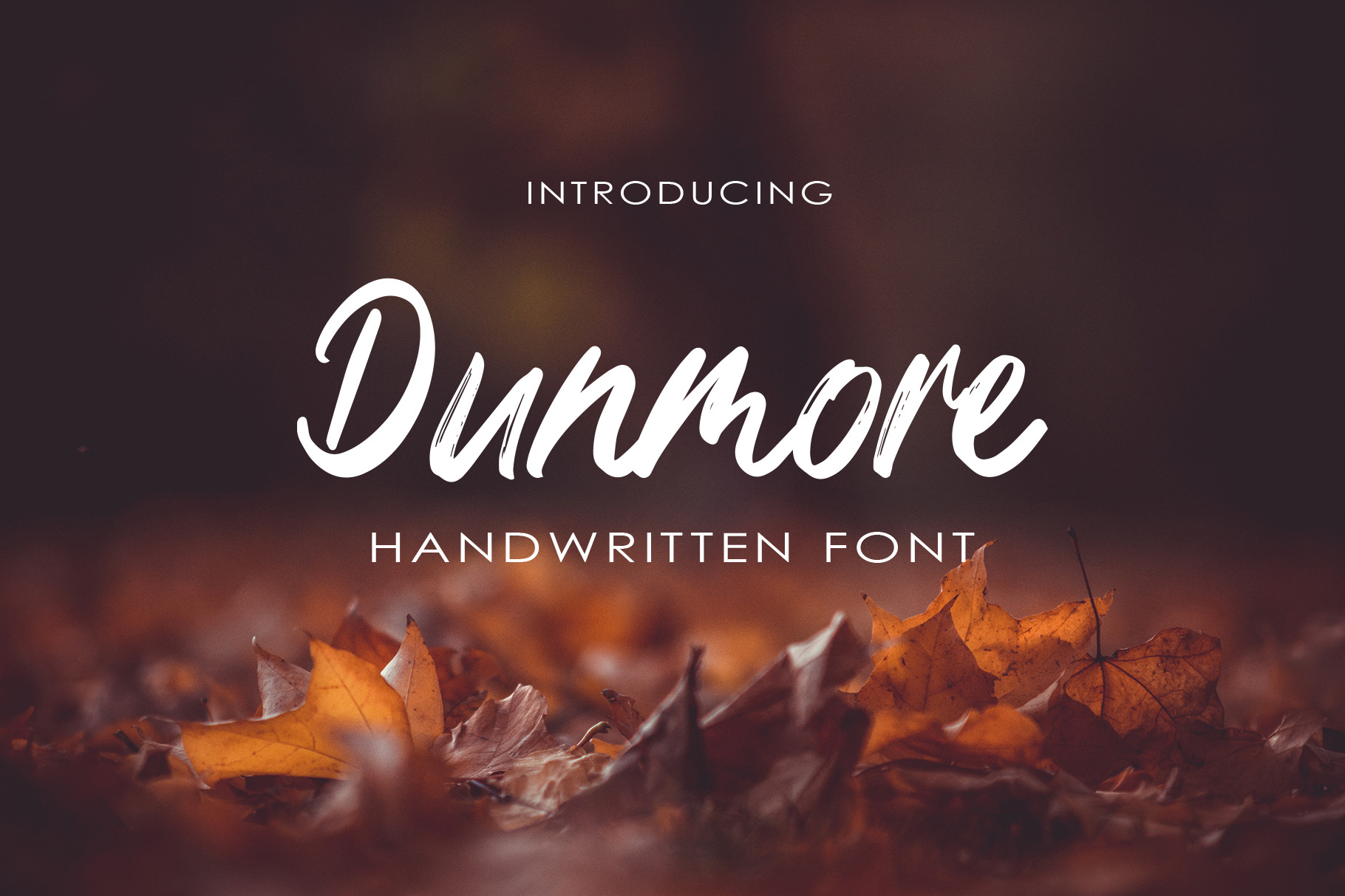
Dunmore Handwritten-Font
Say hello to my first script font: Dunmore!
It was made in my personal style and with some rough brush strokes! This font is perfect to create invitation cards, for branding, prints or simply as a text overlay to all kinds of background images.
This Font includes
- uppercase & lowercase letters
- numeral & punctuation